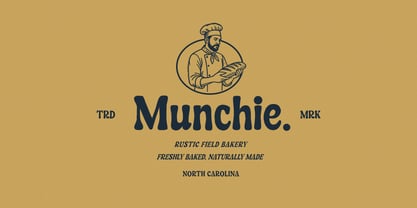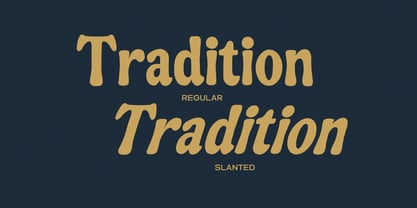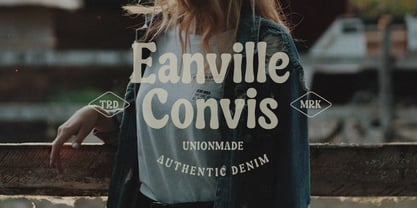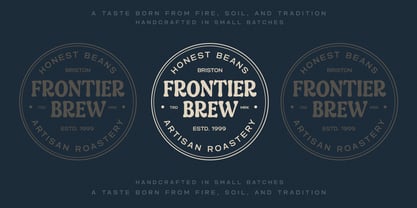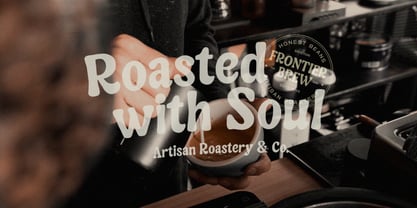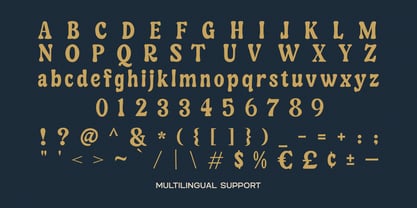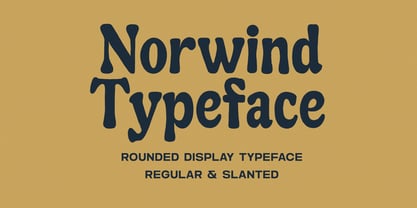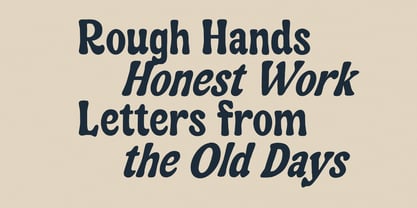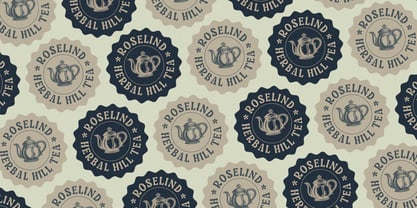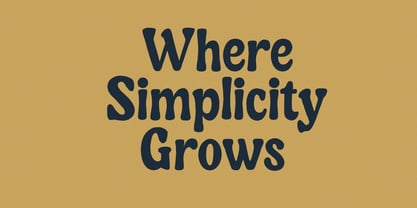
Norwind
The Norwind Font Family was designed by Sahrul Hidayat and published by Typeskets. Norwind contains 2 styles and family package options. More about this family
Norwind Typeface is a rounded display typeface designed to bring warmth, personality, and clarity to your designs. With its soft curves and bold presence, Norwind strikes a balance between playful expression and modern readability. Available in Regular and Slanted styles, this font is perfect for headlines, branding, posters, packaging, editorial layouts, social media graphics, and creative projects that need a friendly yet confident typographic voice. Norwind works especially well for modern brands, lifestyle designs, retro-inspired visuals, and expressive display typography.